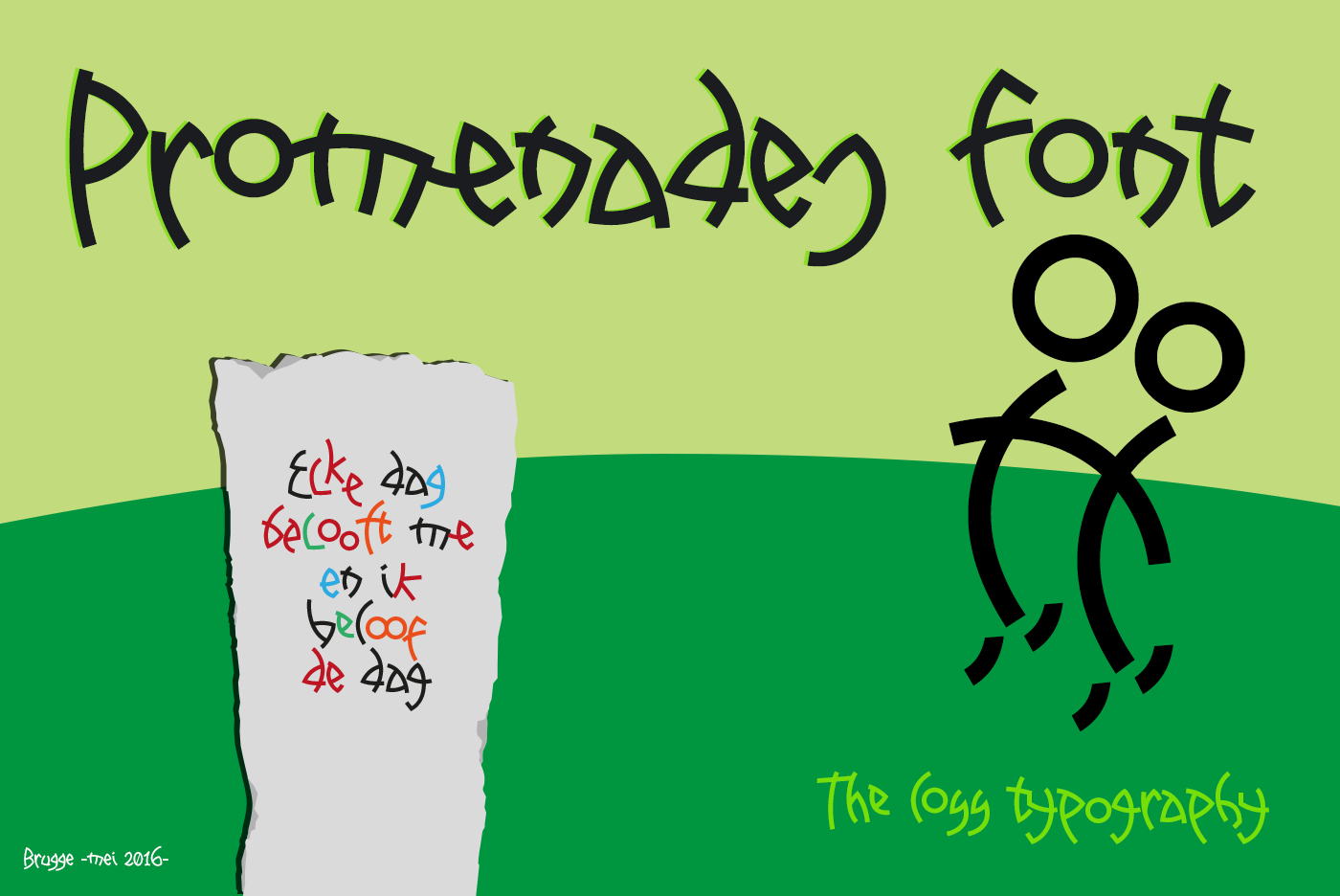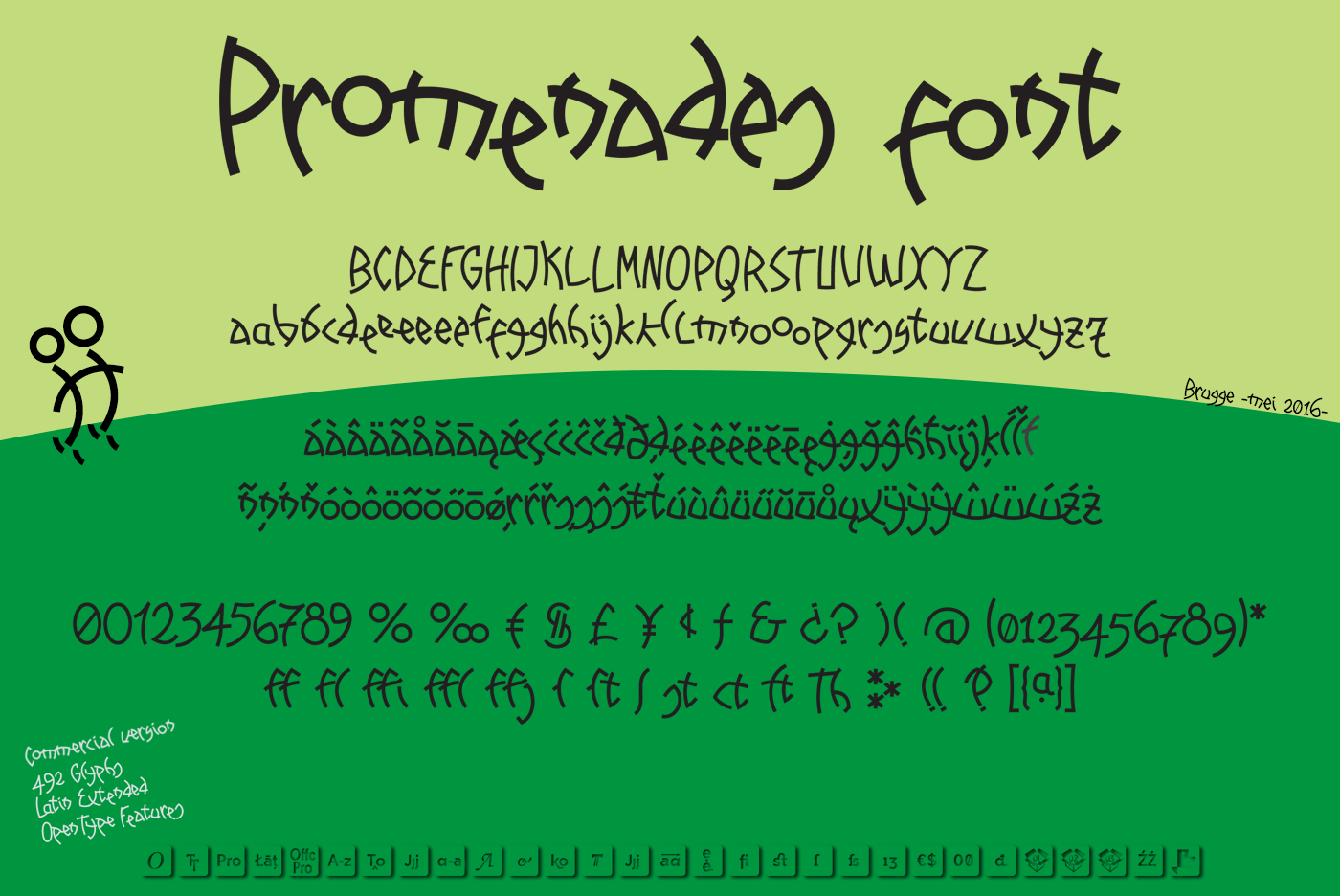
Promenades Font
About Promenades Font
The Promenades font was inspired by a walk done in May 2016 in the Belgian city of Bruges.
A font in this style was carved into a stone at the side of the road and triggered the interested of the designer. He decided to recreate and digitize this handwritten font and share it with the world.